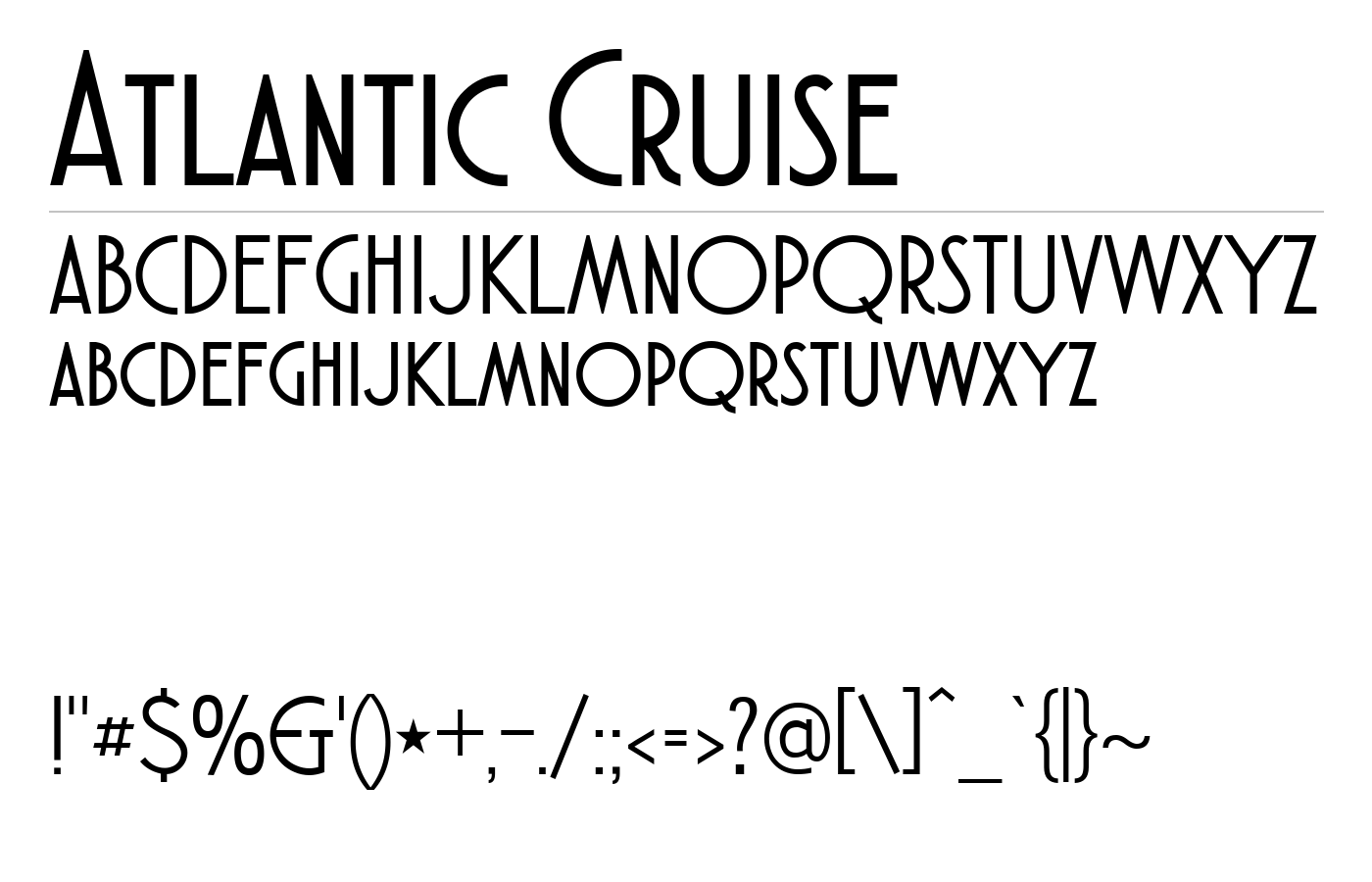
Atlantic Cruise is a sleek sans serif font with a distinctive Art Deco style, featuring tall, narrow letterforms and elegant geometric shapes. Its clean lines and sharp contrasts give it a sophisticated yet modern feel, making it ideal for stylish branding, headlines, and editorial designs that seek a vintage-inspired luxury vibe. This font works beautifully in contexts where a refined and timeless aesthetic is desired, such as fashion, packaging, and upscale event promotions.
Atlantic Cruise Font
About Atlantic Cruise Font